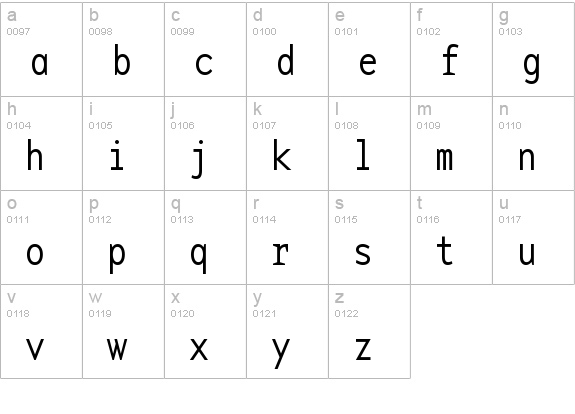
BaseMonoNarrowThin Regular Font Details
BaseMonoNarrowThin Regular is the standard, neutral variant in the BaseMonoNarrowThin typeface family \xE2\x80\x94 well suited to general body text, paragraphs, and standard typographic work.
BaseMonoNarrowThin Regular font is a sleek and elegant typeface designed for modern design projects. Its narrow and thin characteristics make it perfect for use in digital interfaces, coding environments, and editorial layouts. The clean lines and minimalistic design of this font exude a sense of sophistication and professionalism. Best of all, BaseMonoNarrowThin Regular font is available for free download at FontsMarket.com. Whether you are a designer, developer, or content creator, this versatile font will add a touch of refinement to your projects. Don't miss out on the opportunity to enhance your work with this high-quality typeface that is both stylish and easy to read. Download BaseMonoNarrowThin Regular font today and elevate your designs to the next level.